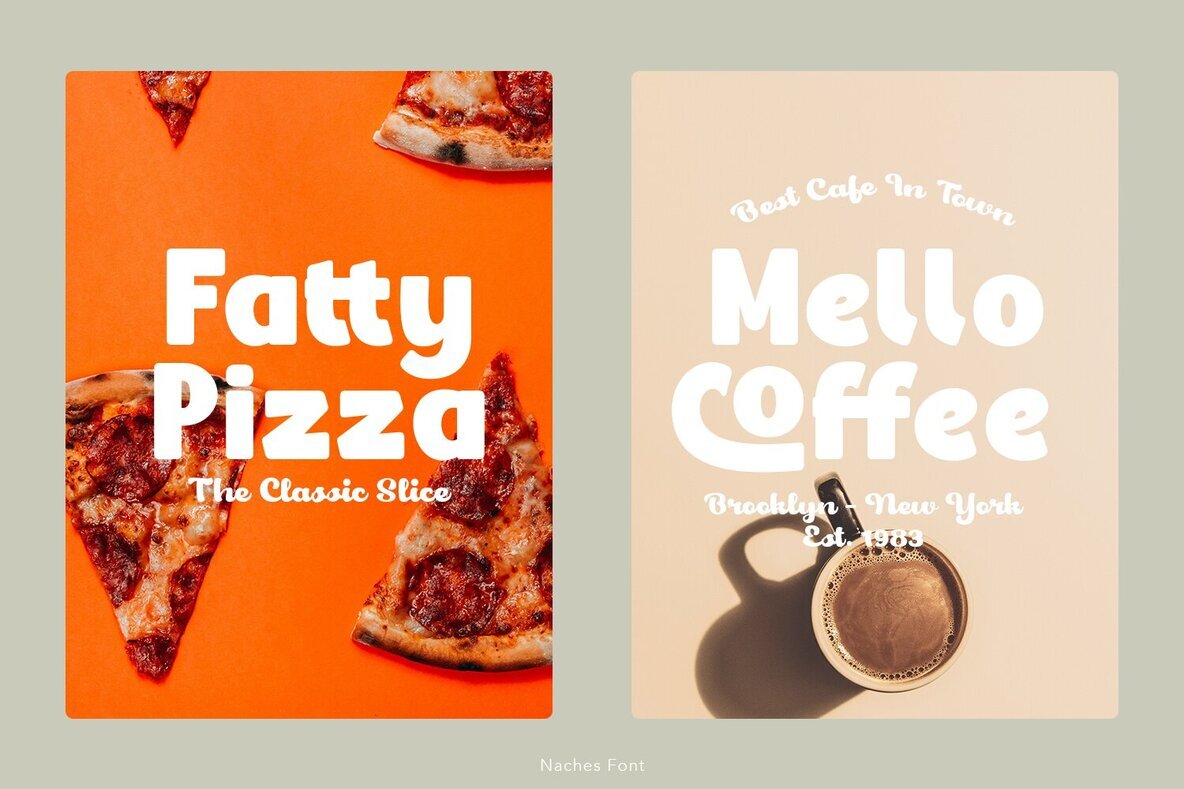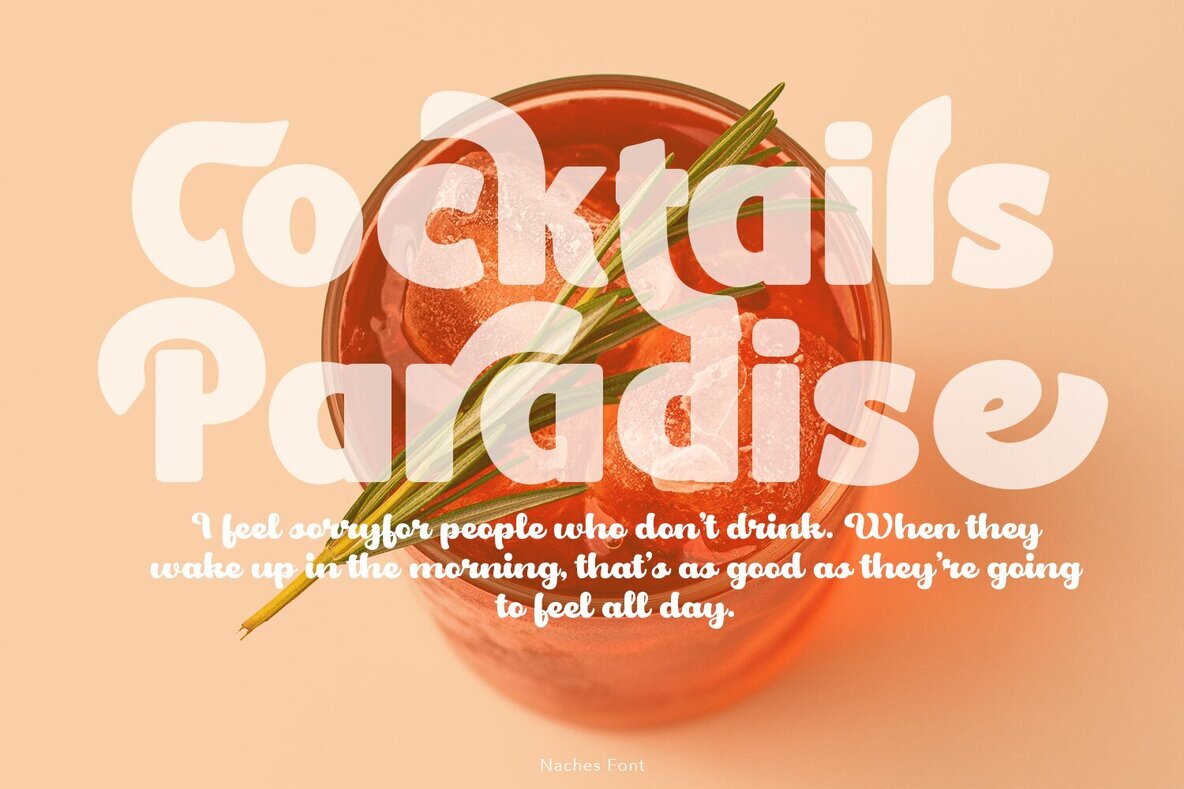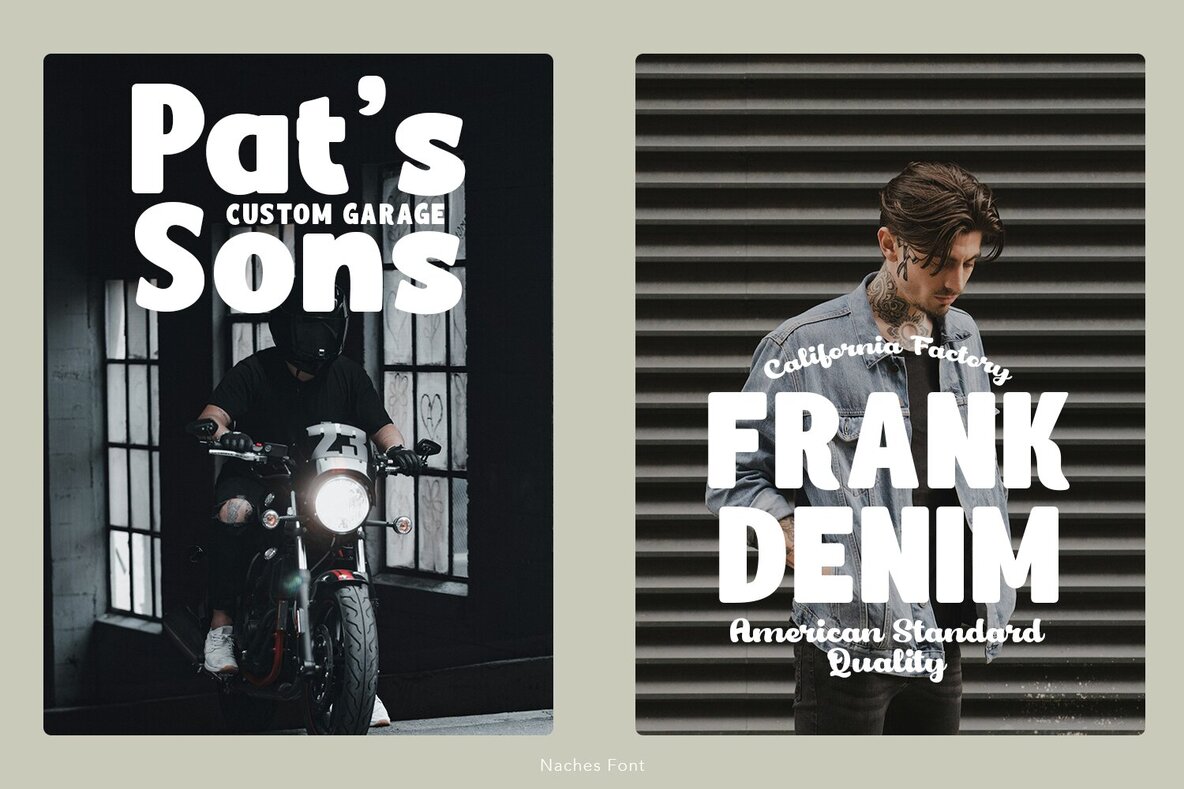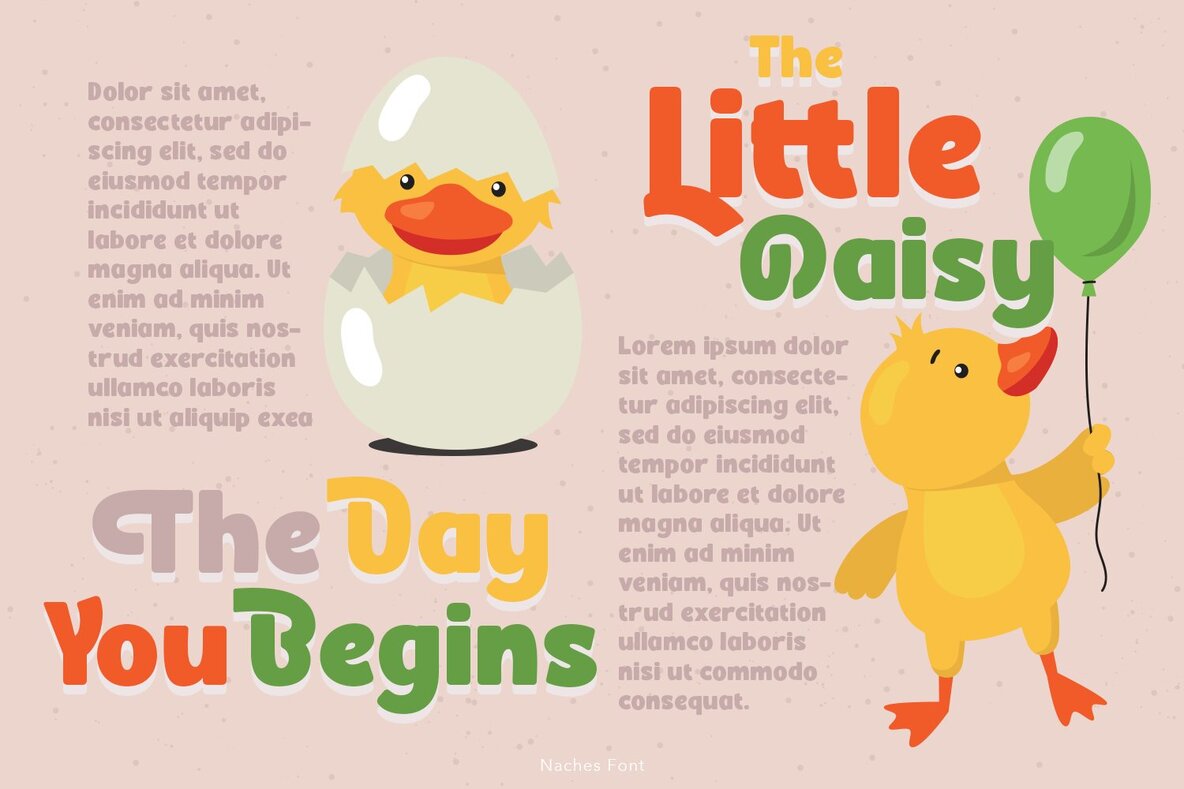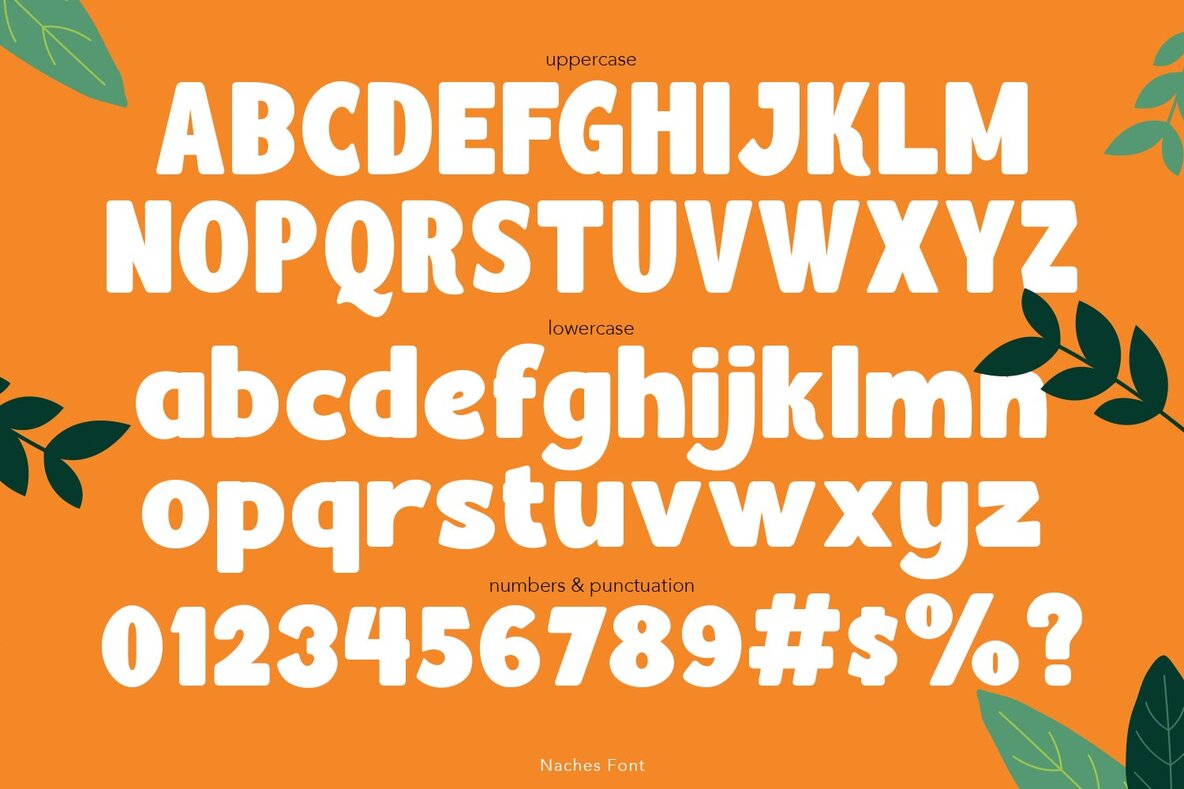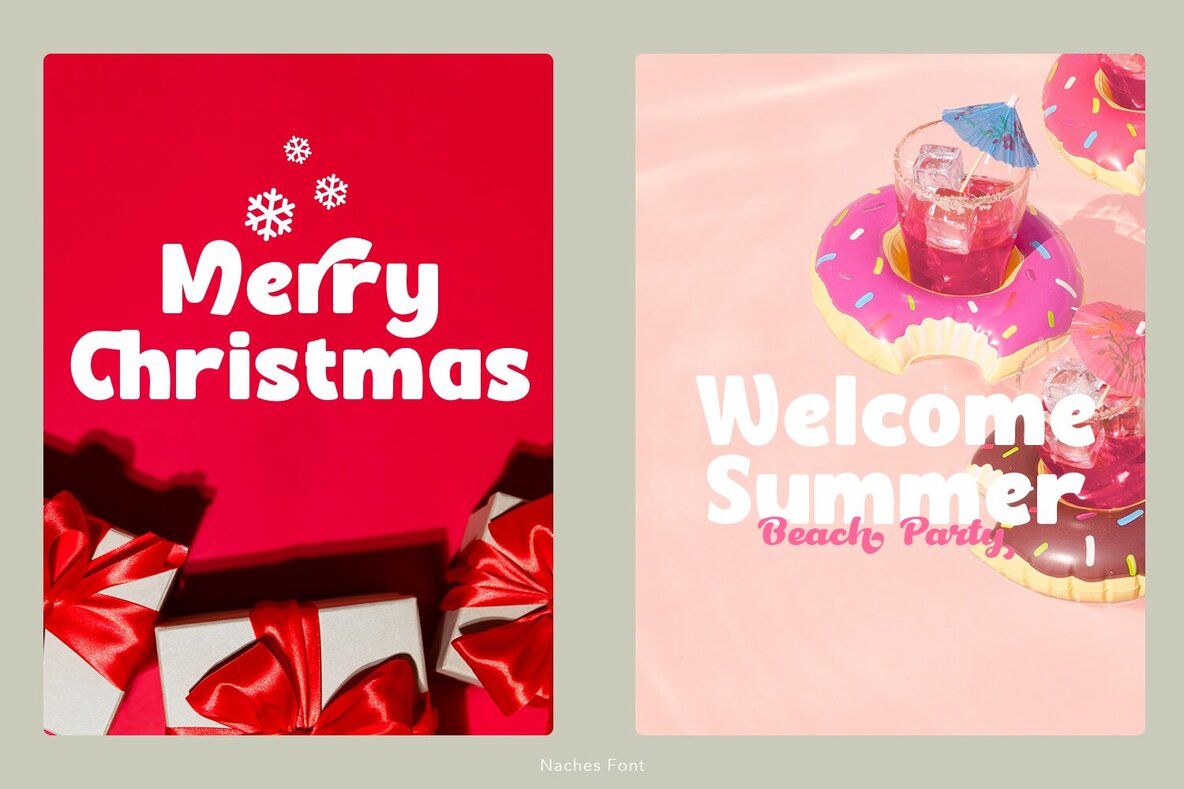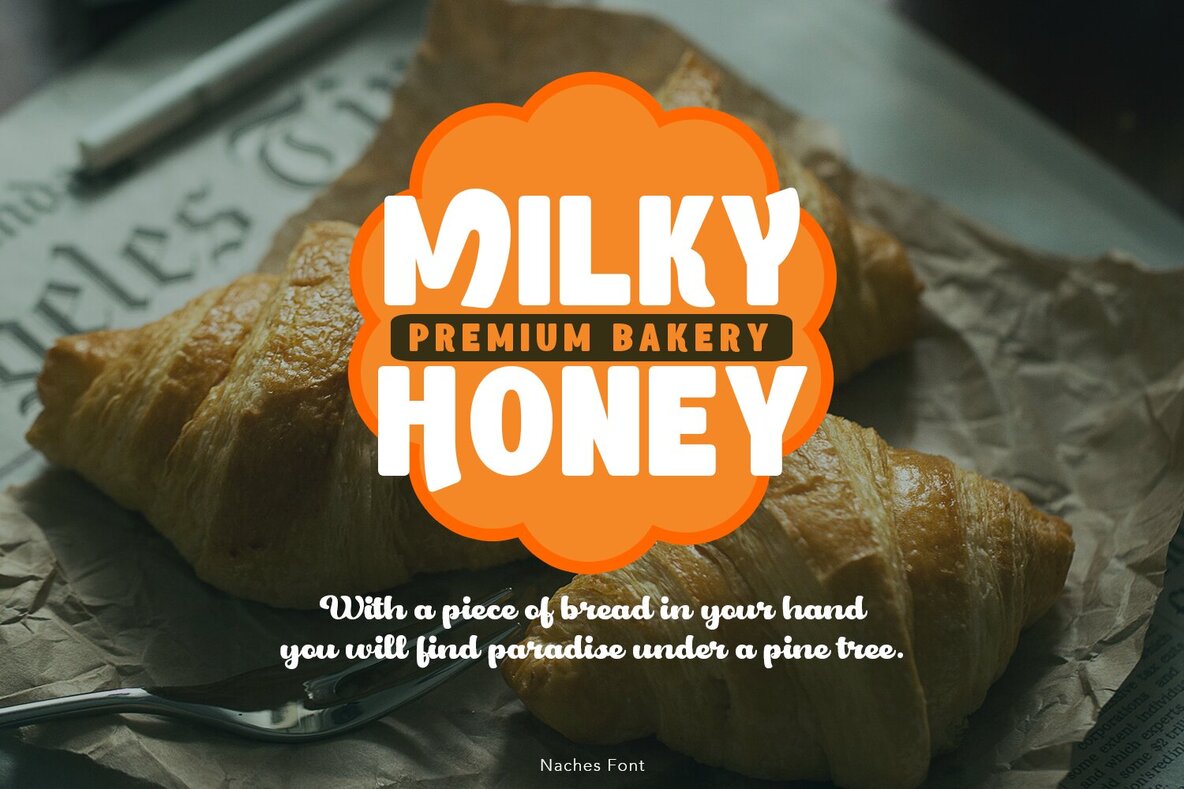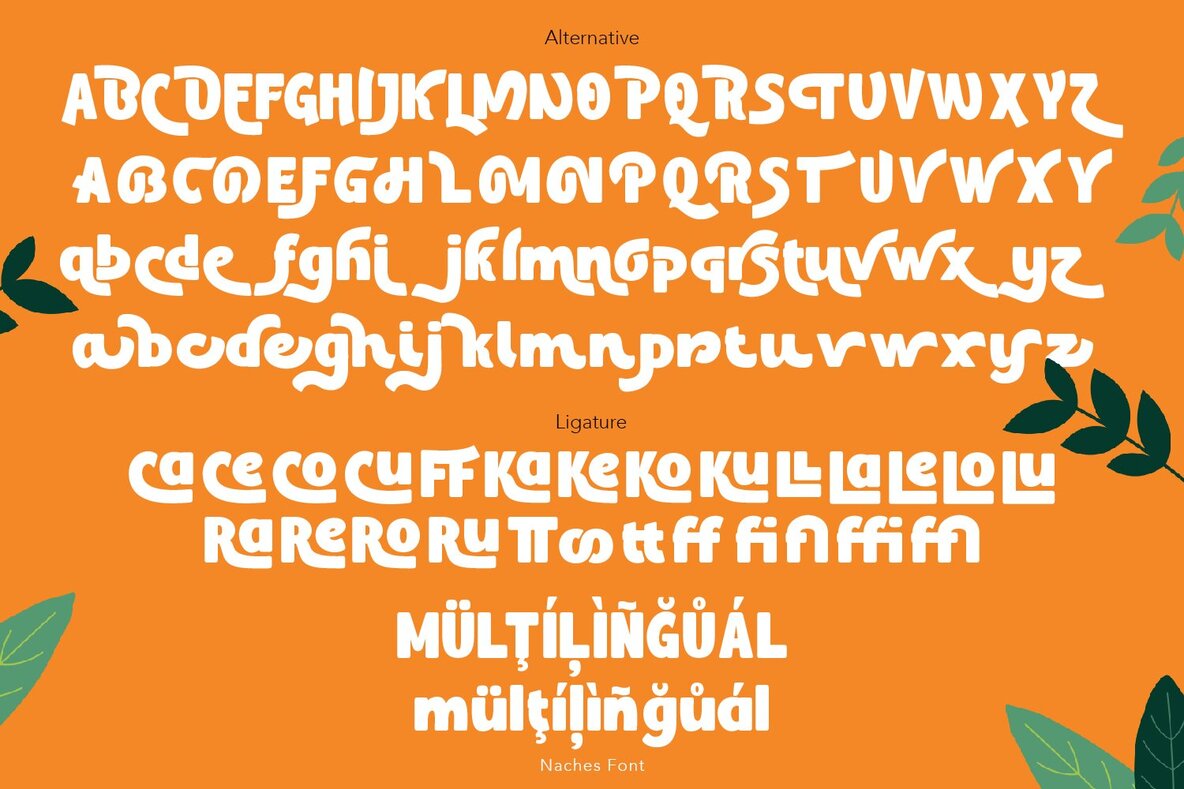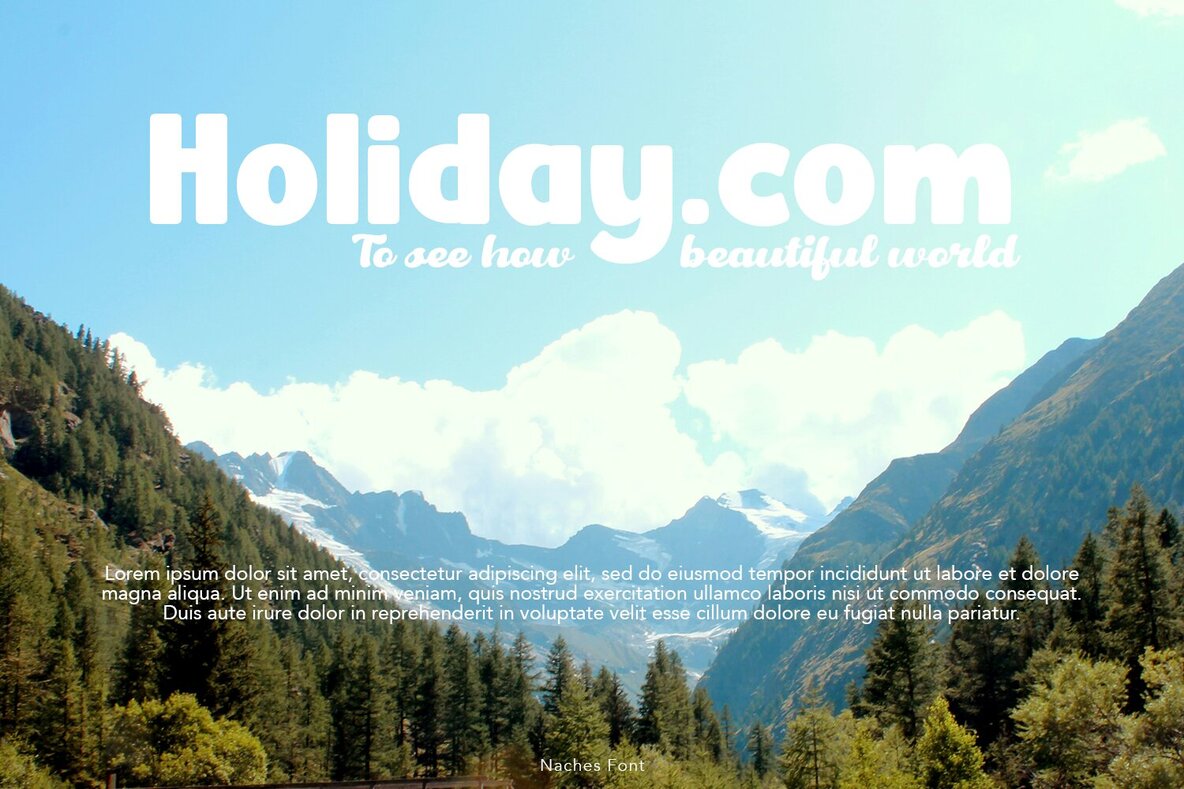
Naches Font
Naches
Naches is a bold modern typeface designed to deliver impact with its single weight, featuring legible and expressive shapes. Its distinct style is enhanced by a variety of stylish alternate characters, offering versatility across diverse design projects. This font is perfectly suited for creating strong, memorable branding and attractive product packaging. With its clean lines and bold presentation, it's ideal for making statements in headlines and fashion pieces.
Whether designing invitations, labels, or posters, Naches ensures significant visual interest and originality. Incorporate this font into logos to create identities that stand out. Its robust character and adaptable design elements provide exceptional usability for any creative project, maintaining clarity and intrigue.